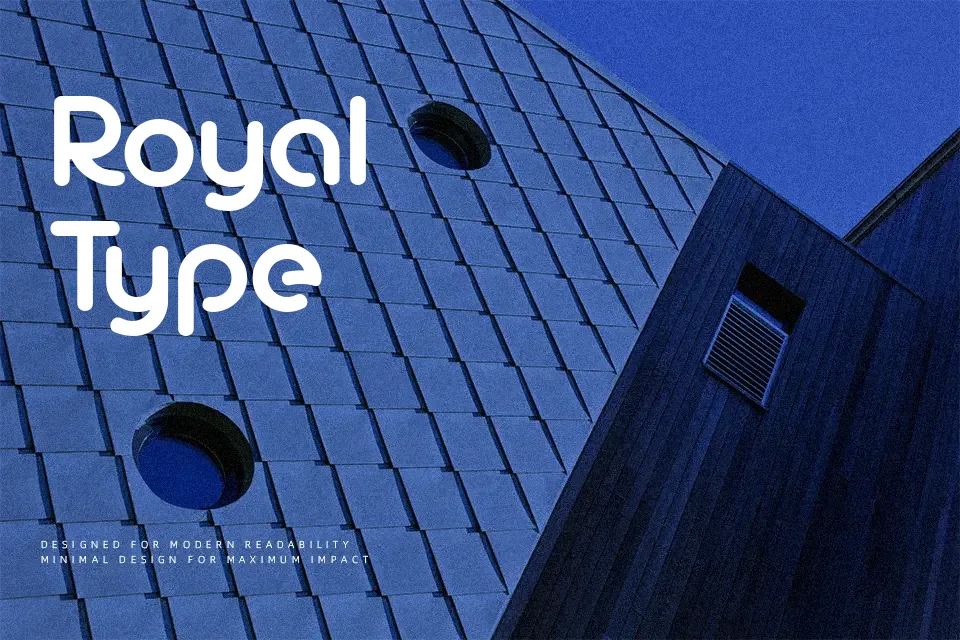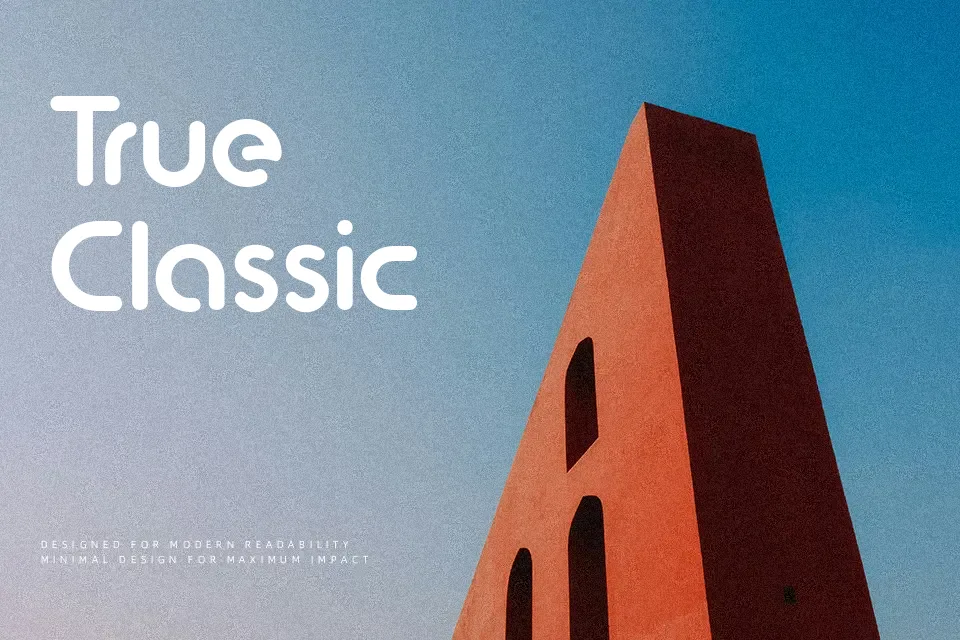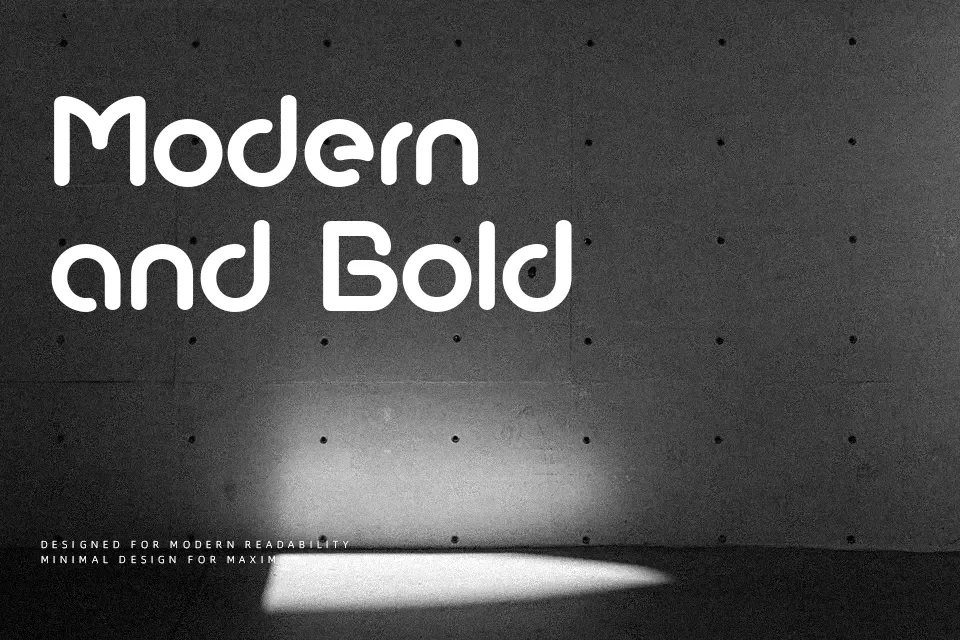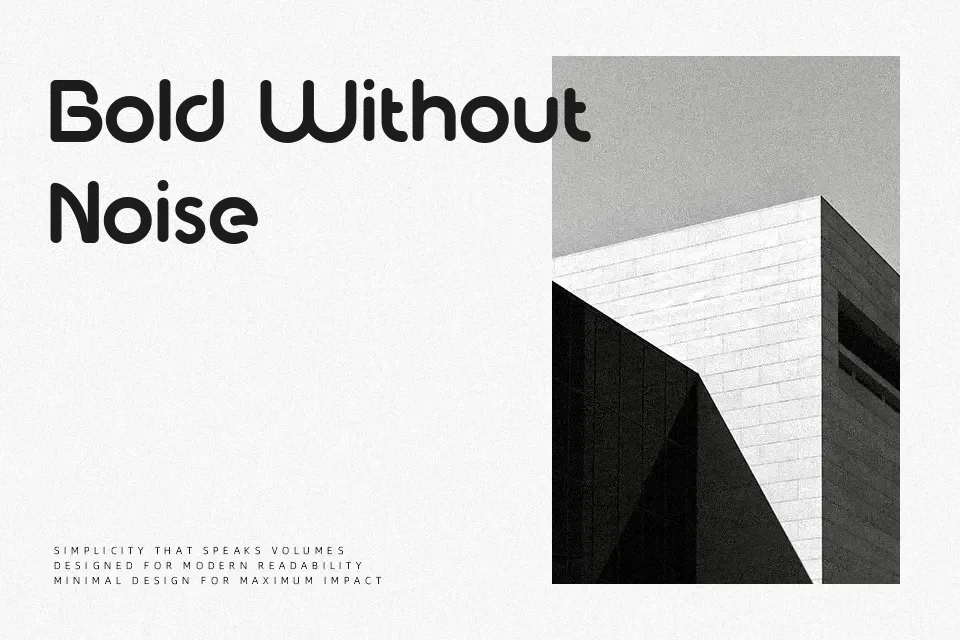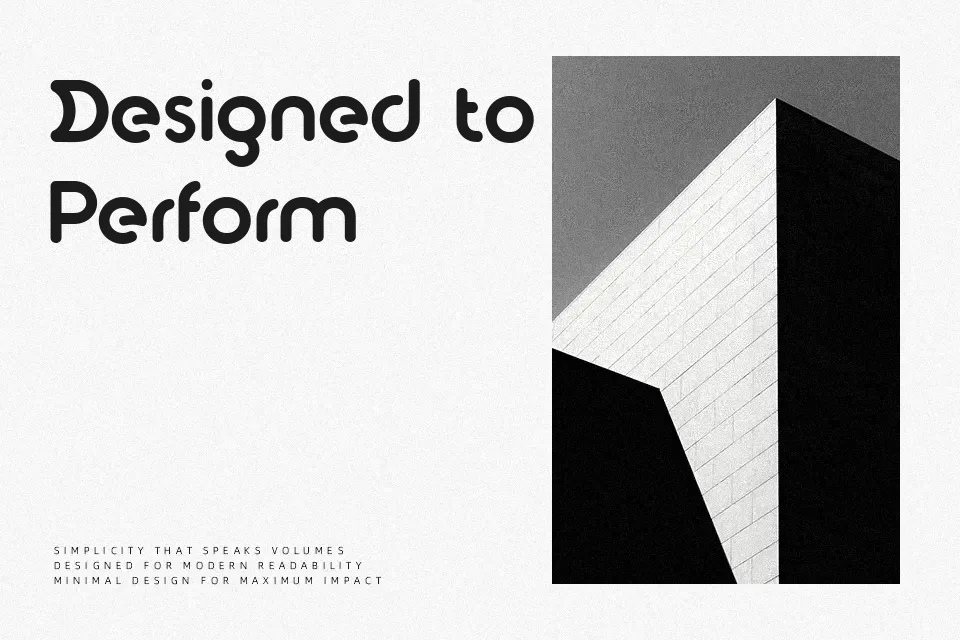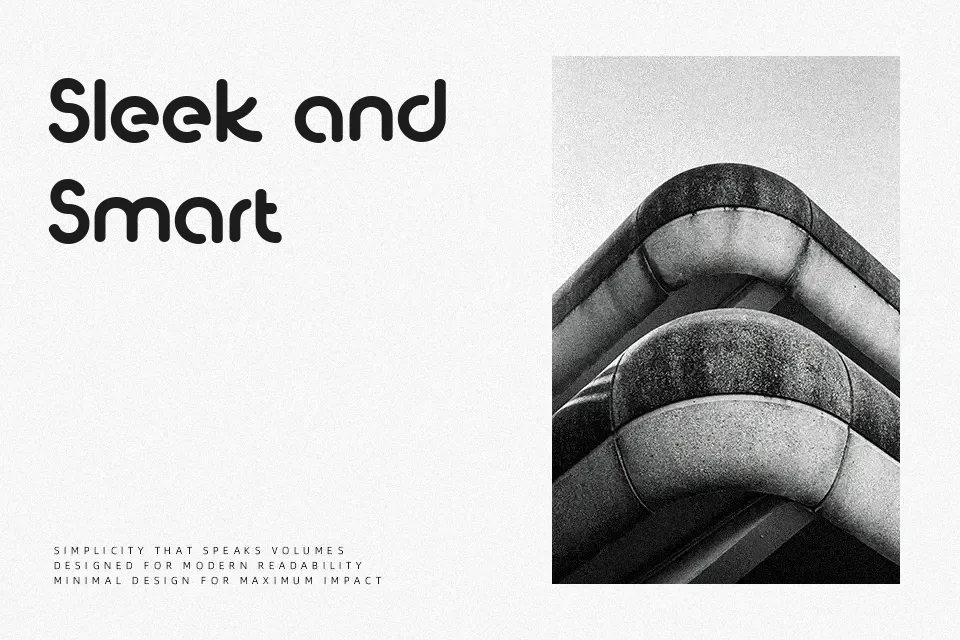
Aremat Font
Aremat’s circular geometry and uniform stroke width give it a measured, modern quietness — the kind of type that reads confident without shouting. Built on rounded geometric forms, it carries a futuristic lean while staying just grounded enough to work in retro-adjacent contexts. Uppercase and lowercase letters, numerals, punctuation, and accented characters are all included. In practice, it performs strongly at large display sizes: logo lockups, poster headers, and short title treatments benefit from its clean proportions. However, it struggles at body copy scale — the experimental geometry that makes it distinctive starts to collapse into sameness when set at small sizes or across long passages. If you need tight-set running text, this is the wrong tool.
Best For:- Tech startup logo wordmarks
– Bold poster and event flyer headlines
– Social media header graphics
– Short title treatments in music or fashion branding
Not Ideal For:- Long-form body text or paragraphs
– Corporate legal or financial documents
– Small-size UI labels or captions
– Projects requiring a wide range of weights or variants
Perfect for branding, headline, and logo, with a bold and geometric style.